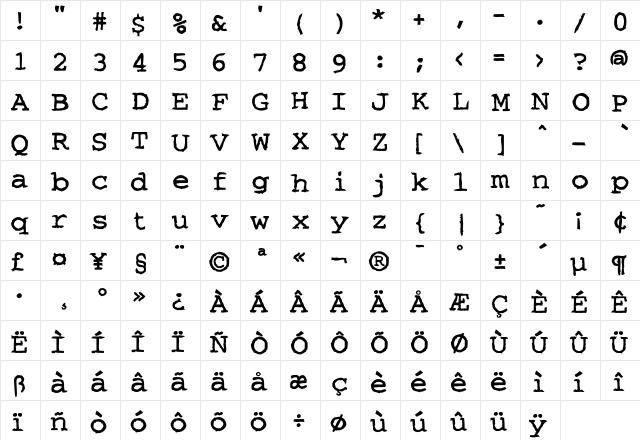
Blast-O-Rama Bold
Design Context for Blast-O-Rama Typeface
Blast-O-Rama is a composed and adaptable typeface that performs quietly and consistently across a wide range of design contexts. Its bold stroke weight gives it real presence on the page.